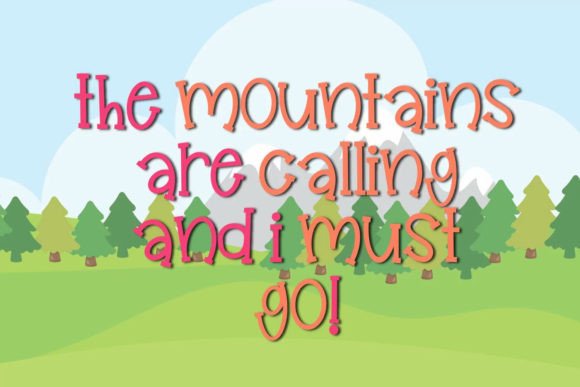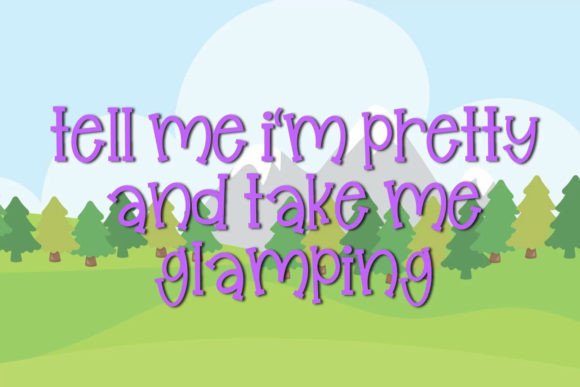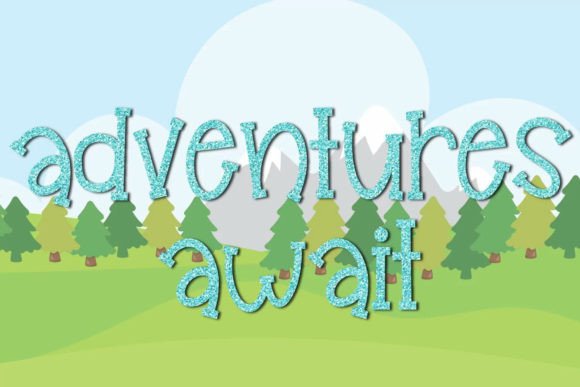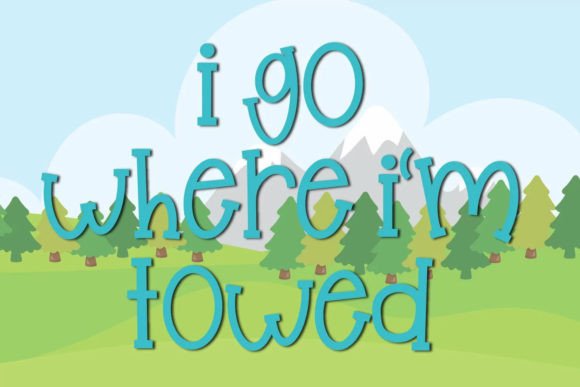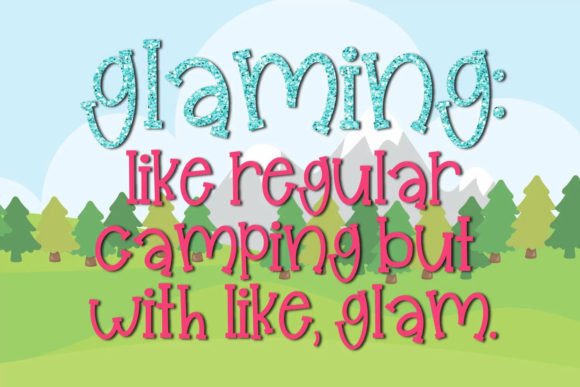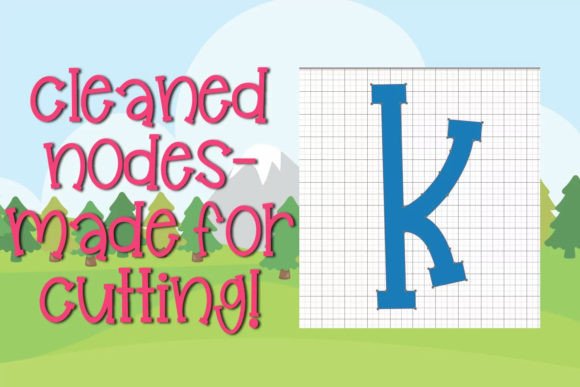
Introducing Glampers Font: The Ultimate Choice for Crafters and Designers
Are you a designer or crafter looking for a unique and versatile font to elevate your projects? Look no further than Glampers Font! This chunky, handwritten square font is perfect for a wide range of applications, from cutting machine projects to decals, notebooks, and more. In this article, we’ll dive into the features and benefits of Glampers Font, and explore how it can take your designs to the next level.
What is Glampers Font?
Glampers Font is a one-of-a-kind, handwritten square font that’s perfect for crafters and designers who want to add a personal touch to their projects. Its chunky, square shape makes it highly legible and perfect for use in a variety of contexts, from large signs to small decals. The font’s unique, hand-crafted feel also gives it a warm and inviting personality that’s sure to capture the attention of your audience.
Optimized for Cutting Machines
One of the standout features of Glampers Font is its optimization for cutting machines. The font has been carefully crafted with optimized nodes, making it easy to cut out intricate designs and letters with precision and accuracy. This means that crafters and designers can use Glampers Font to create complex projects with ease, from custom vinyl decals to intricate paper cutouts.
Endless Project Possibilities
The versatility of Glampers Font is one of its greatest strengths. Whether you’re working on a water bottle, decal, notebook, or something entirely new, this font is the perfect choice. Its chunky, square shape makes it perfect for use in a wide range of contexts, from bold and colorful designs to more subtle and sophisticated projects. Some potential project ideas include:
- Custom water bottles and tumblers
- Vinyl decals and stickers
- Handmade notebooks and journals
- Personalized signs and banners
- Custom apparel and accessories
Why Choose Glampers Font?
So why should you choose Glampers Font for your next project? Here are just a few reasons:
- Unique and eye-catching: Glampers Font is a one-of-a-kind font that’s sure to capture the attention of your audience.
- Highly legible: The font’s chunky, square shape makes it easy to read, even at small sizes.
- Optimized for cutting machines: With optimized nodes, Glampers Font is perfect for use with cutting machines.
- Versatile: Glampers Font can be used in a wide range of contexts, from bold and colorful designs to more subtle and sophisticated projects.
Tips and Tricks for Working with Glampers Font
Here are a few tips and tricks to help you get the most out of Glampers Font:
- Experiment with different colors: Glampers Font looks great in a wide range of colors, from bold and bright to subtle and pastel.
- Play with size: The font’s chunky shape makes it perfect for use at large sizes, but it also looks great at smaller sizes.
- Combine with other fonts: Glampers Font pairs well with a wide range of other fonts, from script fonts to serif fonts.
Glampers Font is a unique and versatile font that’s perfect for crafters and designers who want to add a personal touch to their projects. With its chunky, handwritten square shape and optimized nodes for cutting machines, Glampers Font is the ultimate choice for a wide range of applications. Whether you’re working on a water bottle, decal, notebook, or something new, Glampers Font is sure to elevate your designs and capture the attention of your audience. So why wait? Try Glampers Font today and see the difference it can make!